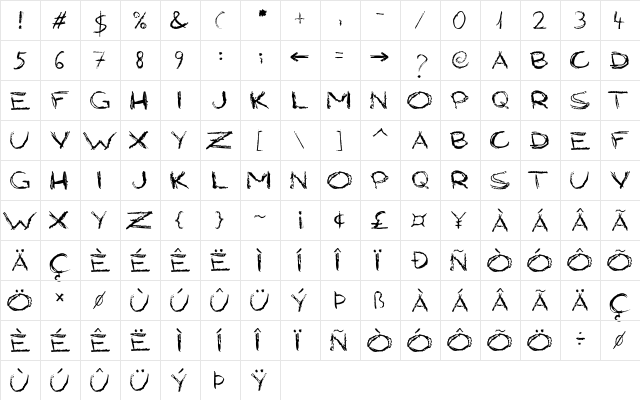
Grungy Style Regular
| Designer | Alex Petrovici |
Design Context for Grungy Style Typeface
Grungy Style is a composed and adaptable typeface that performs quietly and consistently across a wide range of design contexts.